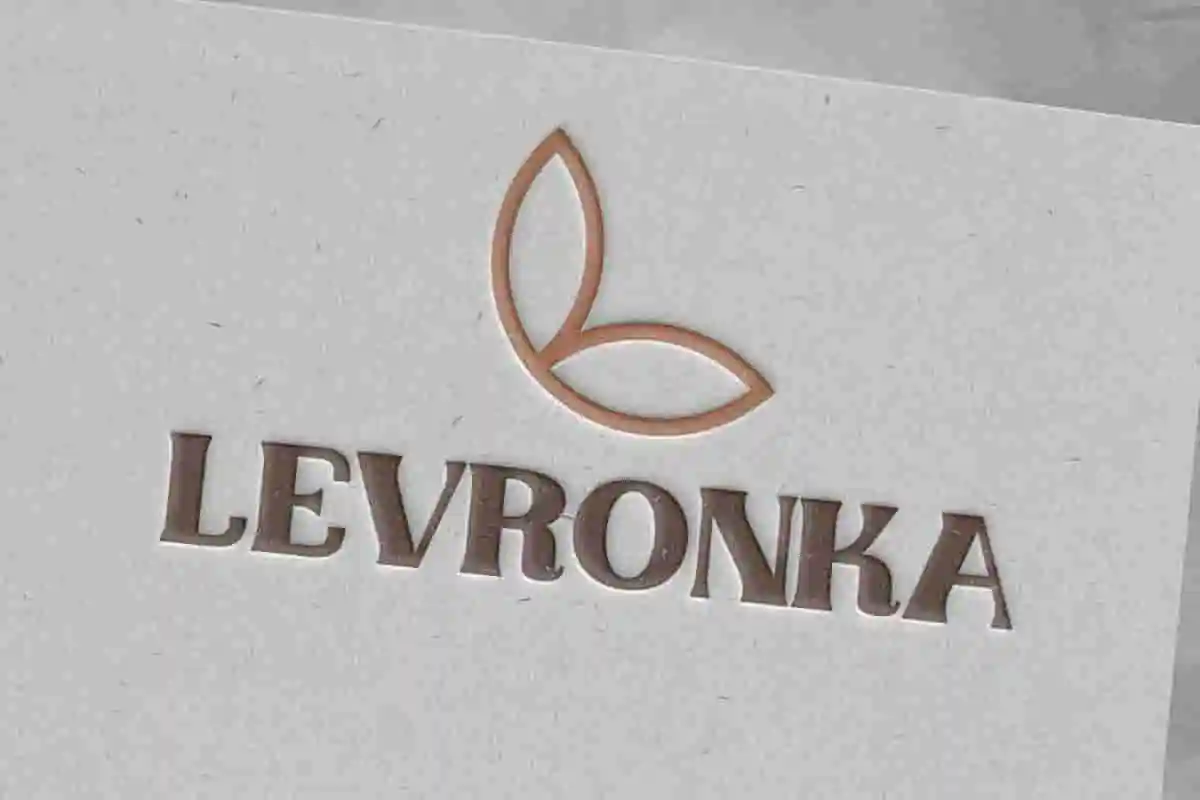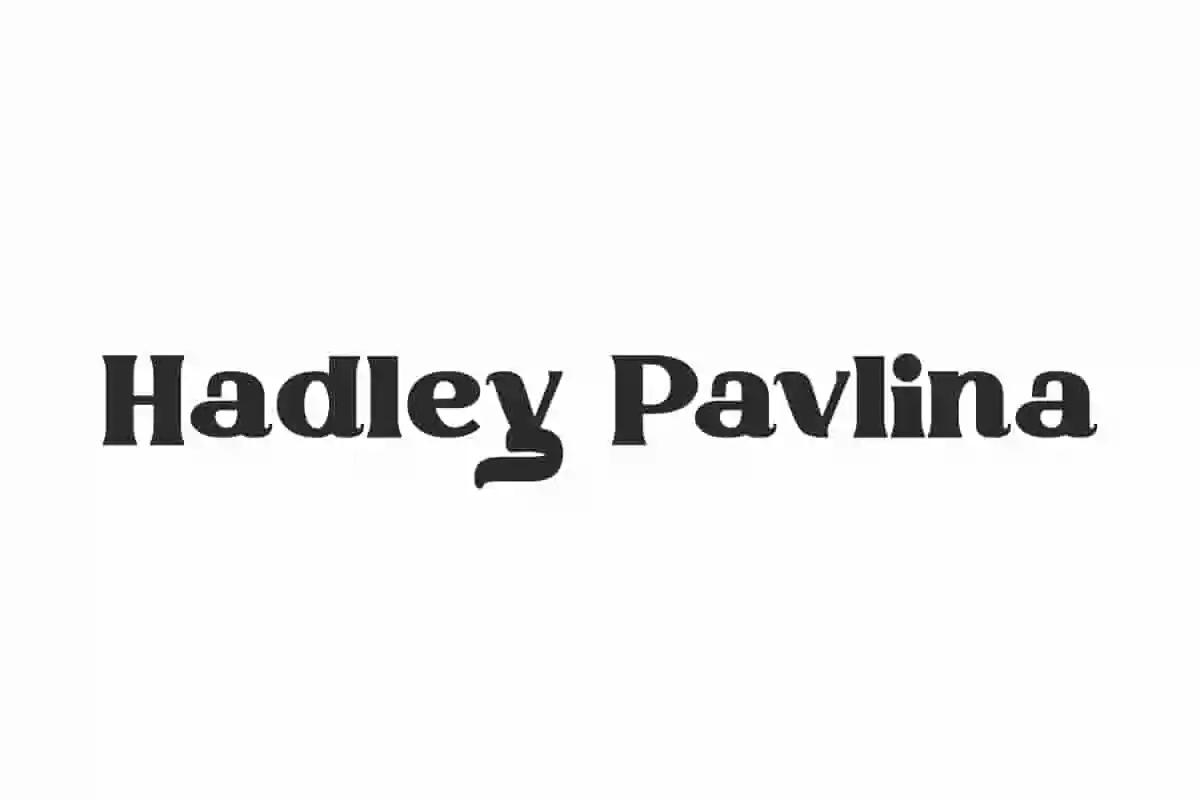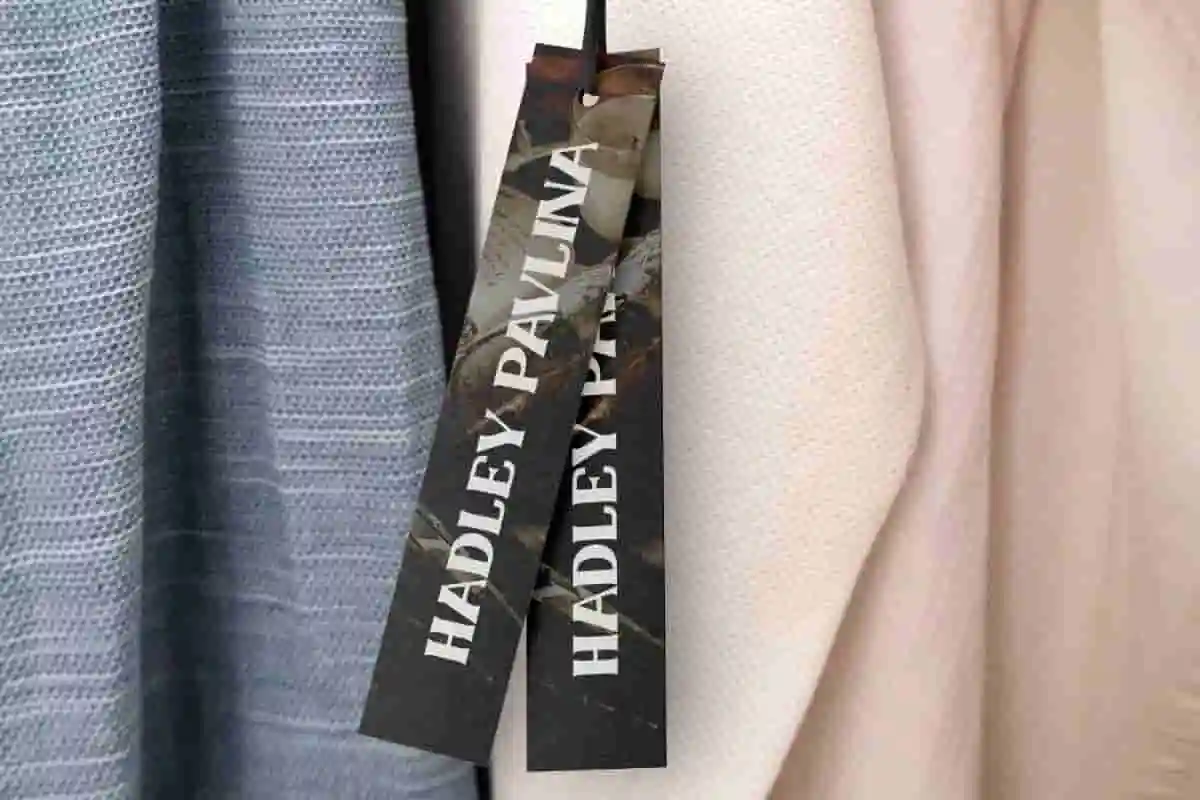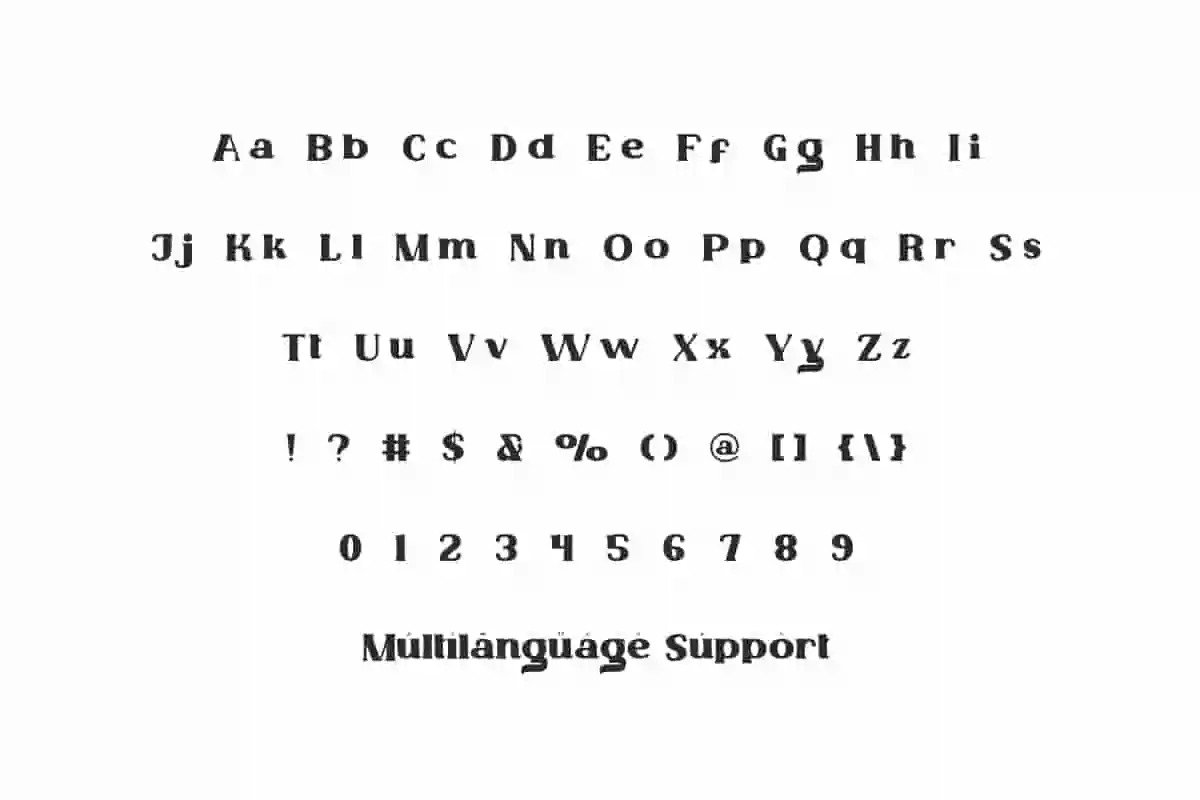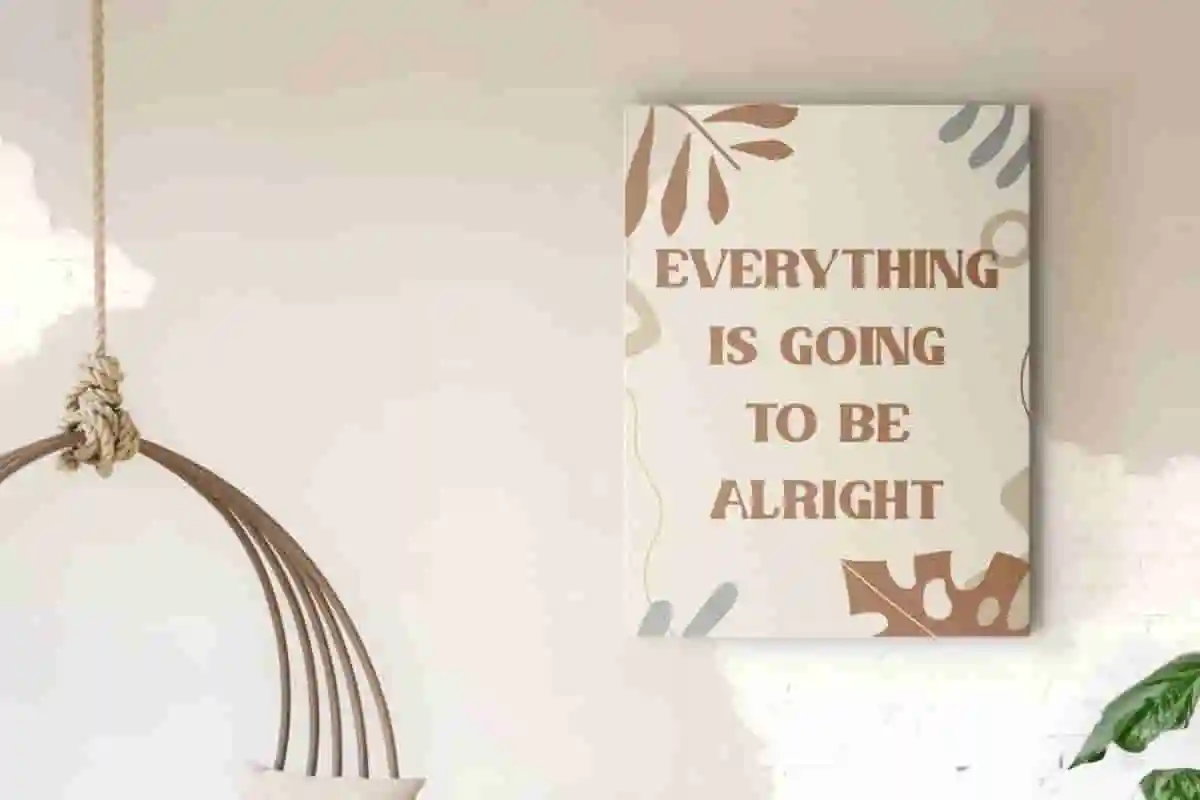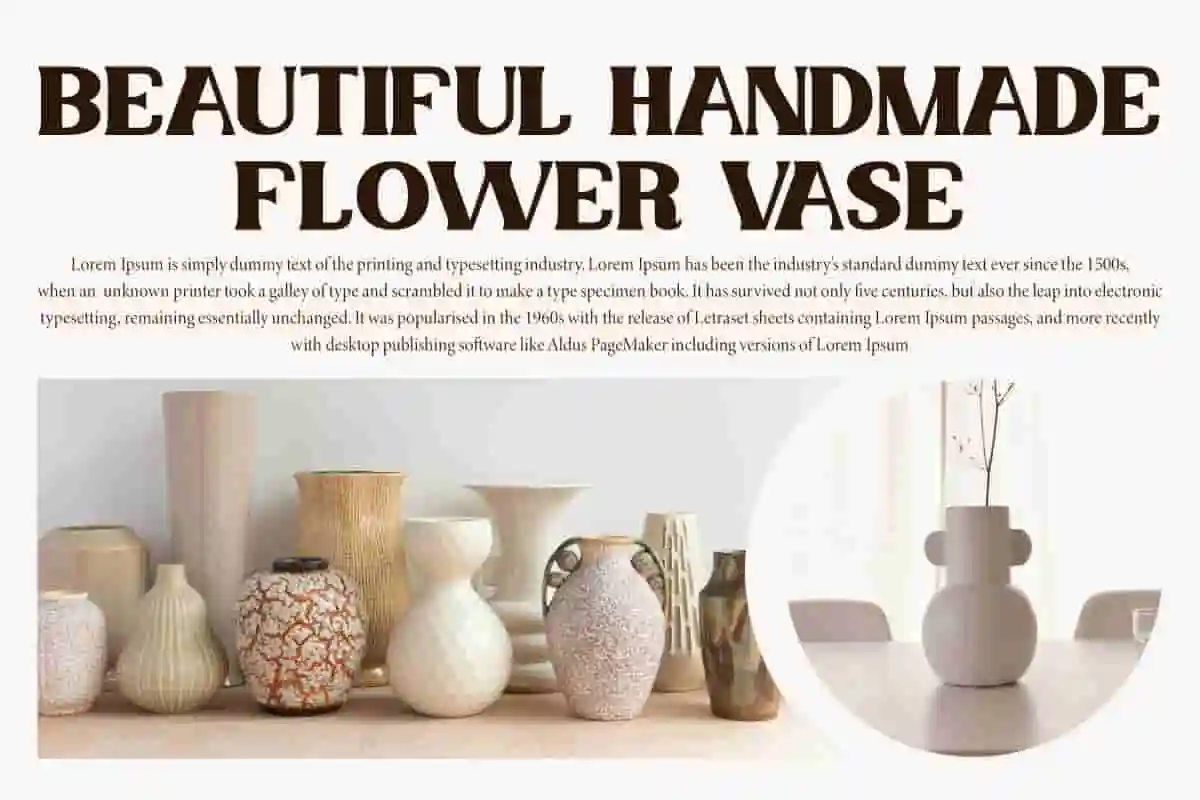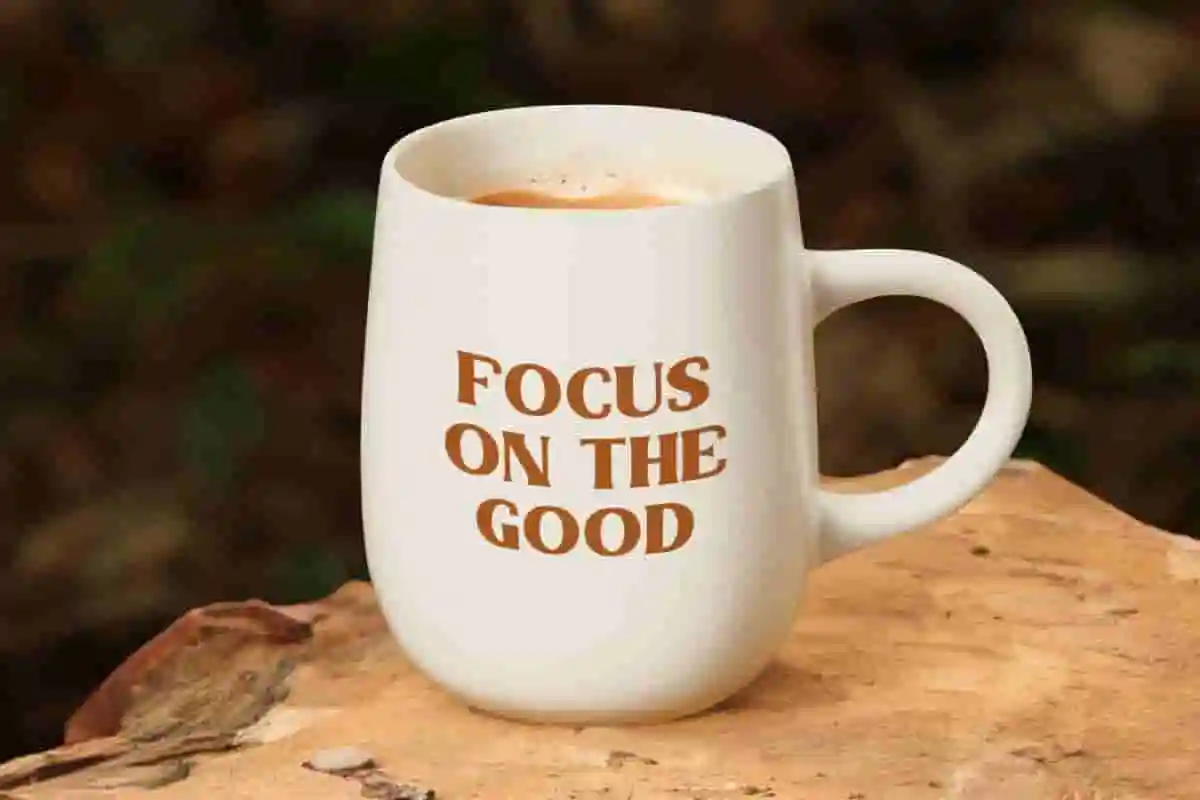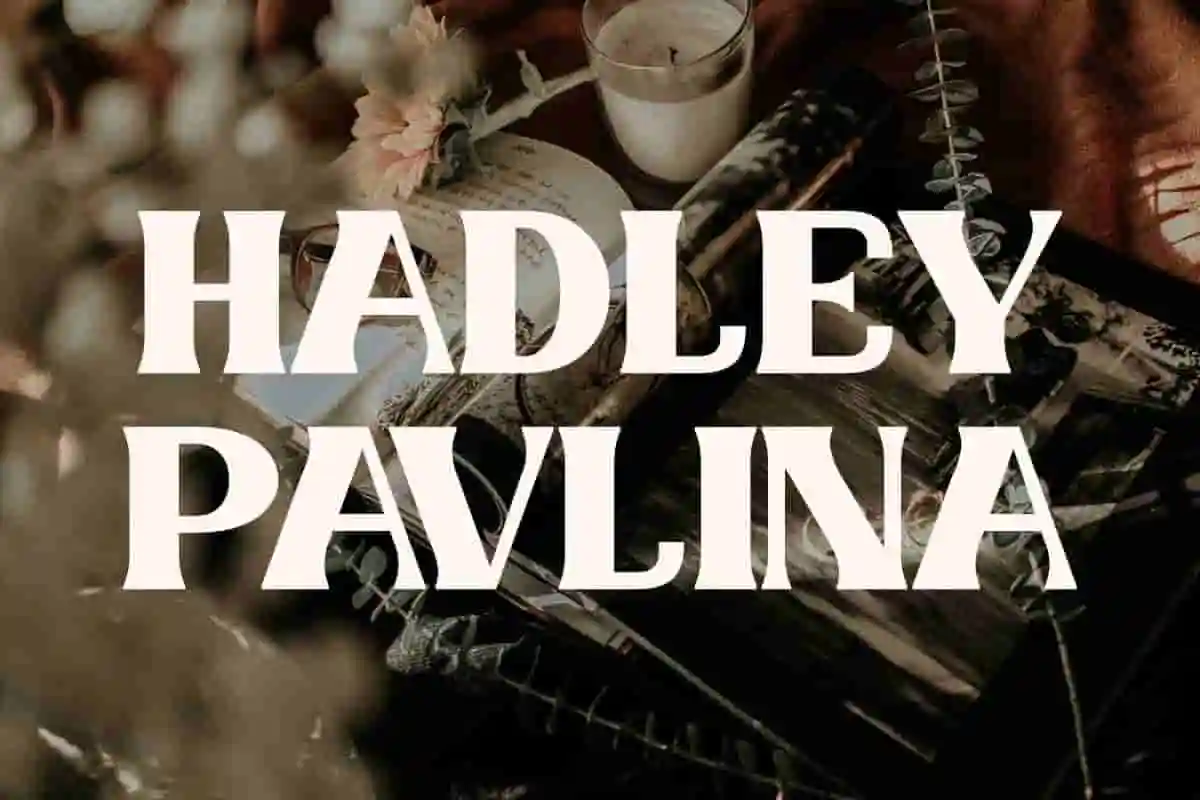
Hadley Pavlina Font is a classic serif bold display font that has been made more modern. This looks makes it different and stunning!
Hadley Pavlina Font is a stylish and bold display font with lots of uniqueness in each letter that will make your design projects more interesting! This stylish font is suitable for any purpose, such as banners, blogs, brand logo, embossed design, headers, label tag, mockup, packaging, poster, quotes, signage, stationery, stickers, template, titles, website, etc.
Hadley Pavlina Font includes full set of Uppercase and Lowercase Basic Characters, Numbers, Punctuation, and Symbols. This font is designed to create an impactful, stylish and trendy visual impression. It would be very suitable to use in advertising, boutique, fashion, graphic design, handicraft, home furniture, interior design, and much more.